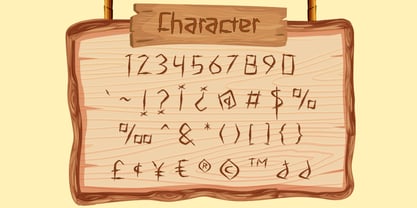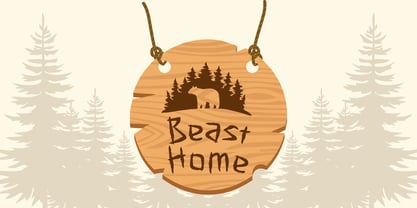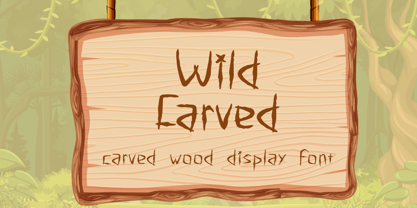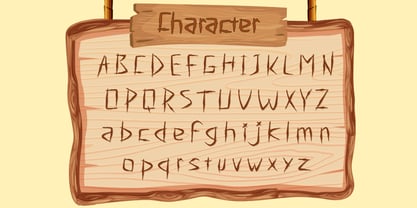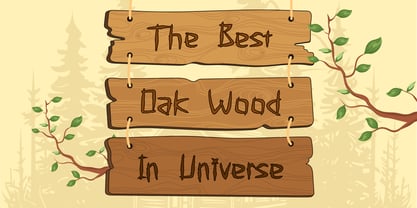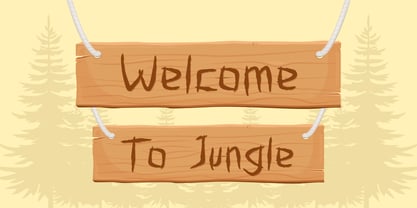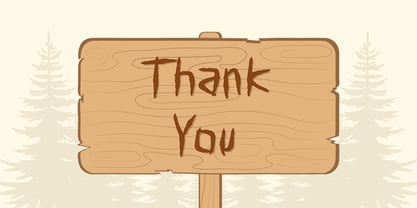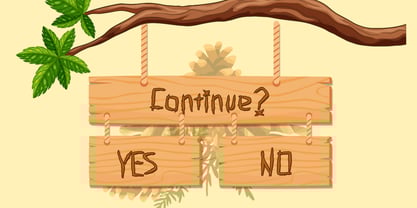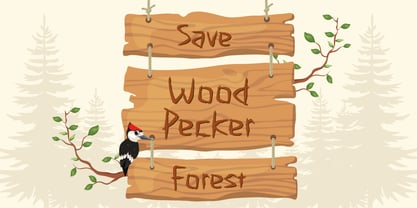
Wild Carved
por Attype Studio
La familia tipográfica Wild Carved fue diseñada por Fadli Ramadhan Iskandar y publicada por Attype Studio. Wild Carved contiene 1 estilos. Más información sobre esta familia
Wild Carved is a unique display font that mimics the look of letters hand-carved into wood. With its rustic and playful style, this font is perfect for nature-themed designs, adventure posters, kids' games, forest signage, camping flyers, and crafting projects.
Add a natural, woodsy charm to your creative work with this carved wood font. Great for titles, packaging, and branding that needs a handcrafted forest vibe.
Diseñadores: Fadli Ramadhan Iskandar
Fundición: Attype Studio
Attype Studio is a vibrant and innovative type foundry founded in 2018 by Fadli, a dedicated type designer from Indonesia. Our mission is to create unique and engaging display fonts that elevate brands and projects. Specializing in lettering and brush script calligraphy, we pride ourselves on designing layered display fonts that are dynamic and full of personality.Located in Indonesia, Attype Studio focuses on crafting fonts that bring brands to life, ensuring they stand out with a touch of elegance and creativity. Our fonts are perfect for branding, providing a fresh and lively feel that captures attention. We aim to make each font not only functional but also an artistic expression that adds character to any project.Our dedication to quality and creativity has made our fonts popular among various businesses and designers worldwide. For more information about our work and to explore our font collections, visit our website or follow us on social media. Discover how Attype Studio can transform your brand with our unique and captivating fonts.